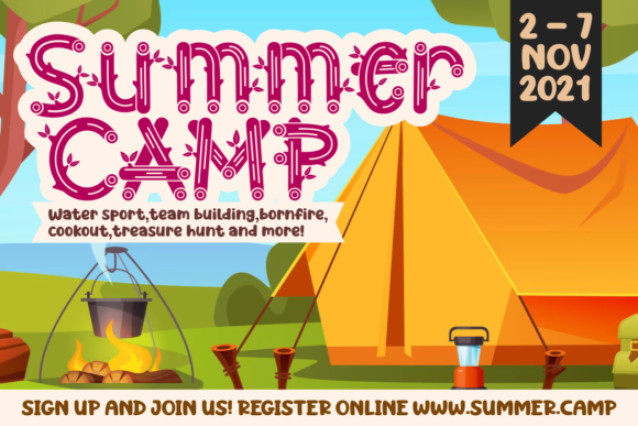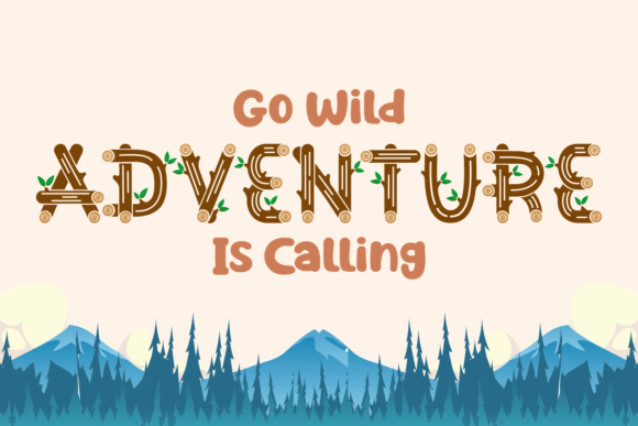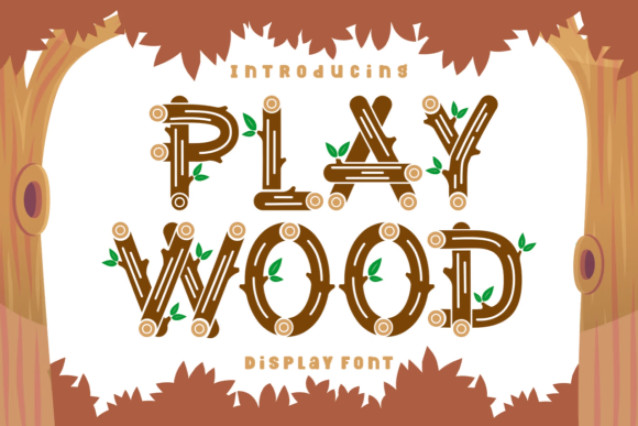
Playwood Font
Playwood is a cool, incredibly unique and fun decorative font. It embodies playfulness and authenticity and is the perfect choice for any children activity or school project.